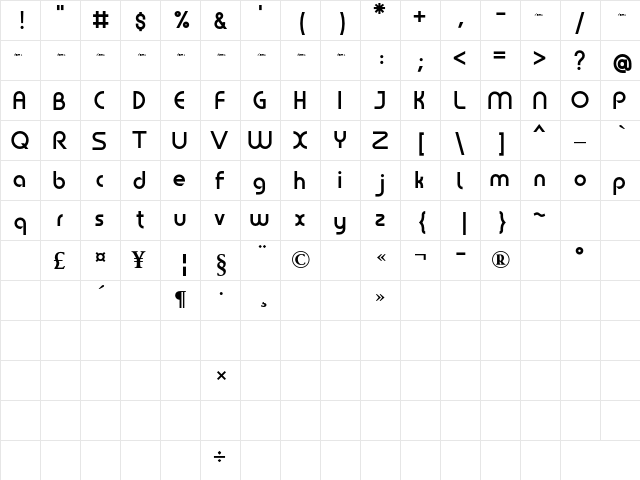
Grayson - Demo Regular
Design Context for Grayson - Demo Typeface
Grayson - Demo offers clean, dependable letterforms without strong stylistic allegiance, making it a practical choice for designers who need flexibility.